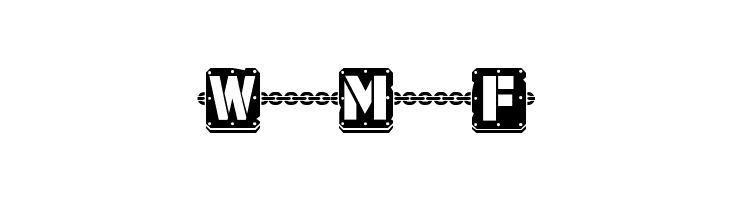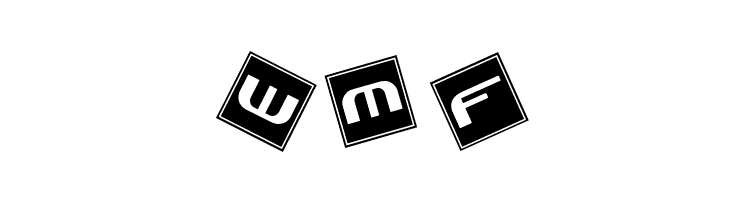
A modern, geometric font with characters enclosed in rectangles.
A playful, balloon-enclosed decorative font perfect for whimsical projects.
A modern, decorative font with italicized, enclosed characters and high contrast.
A playful, bold font with characters enclosed in triangular pennants, perfect for festive designs.
A playful, decorative font with bold characters enclosed in circles.
A bold, industrial font with characters enclosed in chain-linked frames.
Bold, blocky characters enclosed in square outlines with a playful, stencil-like appearance.
A playful font with letters enclosed in seed packet designs.